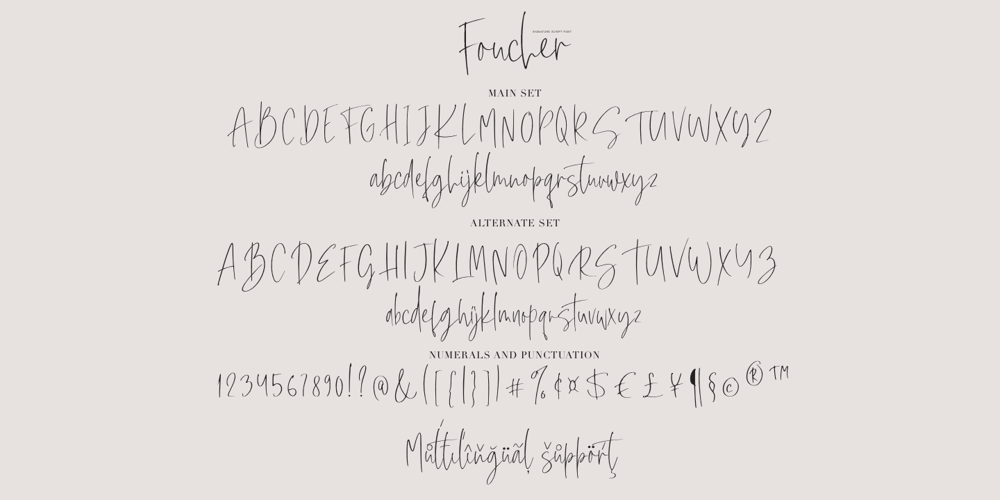
Foucher Font Family was designed by Pavel Larin and published by Larin Type Co. Foucher contains 1 styles and family package options. Foucher – this beautiful font is light and elegant, will emphasize your individuality in any project. You can also use them to create a logo or use for small businesses, branding, t-shirts, book covers, stationery, marketing, blog, magazines, and more. This font includes a basic set of letters and a complete set of alternatives set as well as numbers, fractions, and basic punctuation. This font supported PUA encoded.